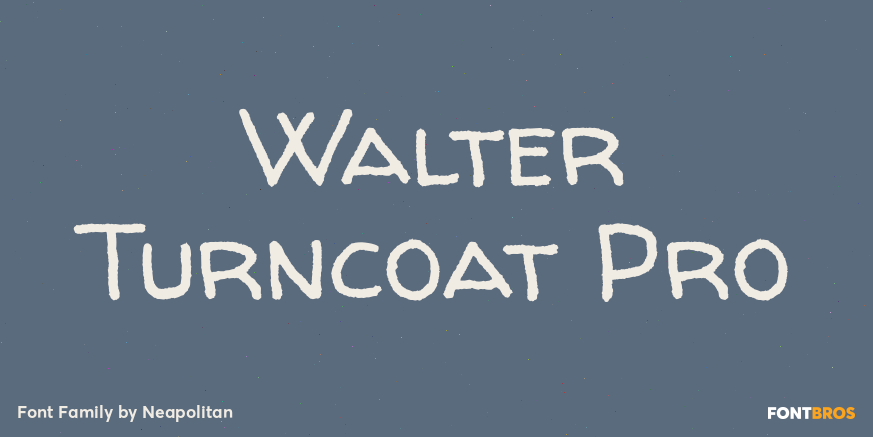
Walter Turncoat Pro
About Walter Turncoat Pro
Contrary to popular lore, Walter Turncoat was NOT a traitor executed during the Revolutionary War. Actually, Walter spent his days carefully executing new typefaces doing his part to help establish a free press! Ever the patriot, Squid honors old Walter…